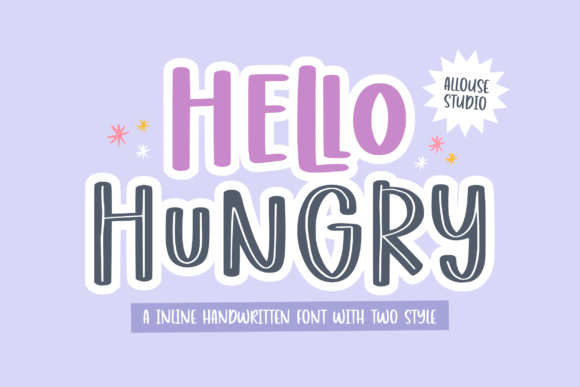
Welcome to the world of Hello Hungry, where charm and sophistication converge. This mesmerizing Inline handwritten font family, meticulously crafted by allouse.studio, presents two distinct styles that exude elegance and personality. Unveil the captivating Hello Hungry Script, a graceful and elongated beauty, and its captivating counterpart, Hello Hungry Rough, where raw edges blend with subtle textures, creating a uniquely authentic charm. Together, these fonts orchestrate a symphony of visual delight, inviting you to express your creativity with flair.
Step into a realm where words dance with grace and emotion, where Hello Hungry transforms your designs into captivating masterpieces. Its effortless flow and captivating curves bring life to logos, branding projects, and social media posts, leaving an unforgettable impression on your audience. Unleash your imagination and craft product packaging that speaks volumes, captivating your customers with a sensory experience that transcends the ordinary.
With Hello Hungry as your creative ally, weddings and special occasions take on a new level of enchantment. Embrace the romance and allure of the Hello Hungry Script style, allowing your invitations and vows to exude a timeless elegance that will leave your guests spellbound. Let your words dance across the page, evoking emotions and creating memories that will last a lifetime.
Hello Hungry is more than just a font; it's a conduit for self-expression, a means to infuse your creations with a touch of magic. Whether you're a graphic designer seeking to elevate your projects, a social media manager desiring captivating visuals, or a creative individual yearning for a font that mirrors your unique style, Hello Hungry awaits your embrace. Its versatility knows no bounds, making it the perfect choice for any project that demands a touch of sophistication and charm.
Immerse yourself in the enchanting world of Hello Hungry and let your creativity flourish. Unleash the power of words, transformed into captivating visual masterpieces, and leave an indelible mark on your audience. Discover the endless possibilities that await you with Hello Hungry, where beauty and versatility intertwine. Embark on this creative journey today and let your imagination run wild.